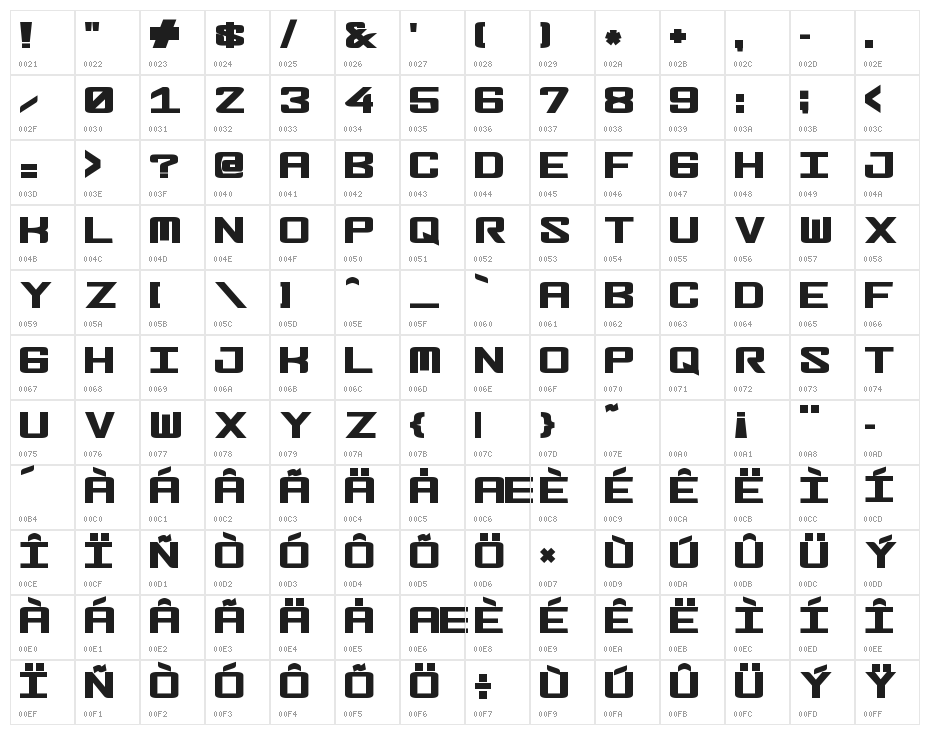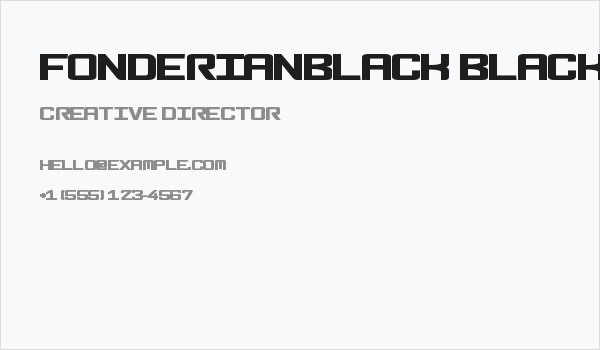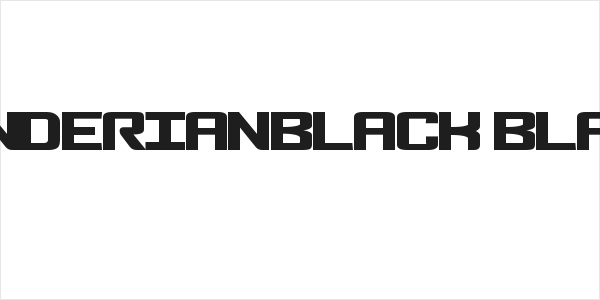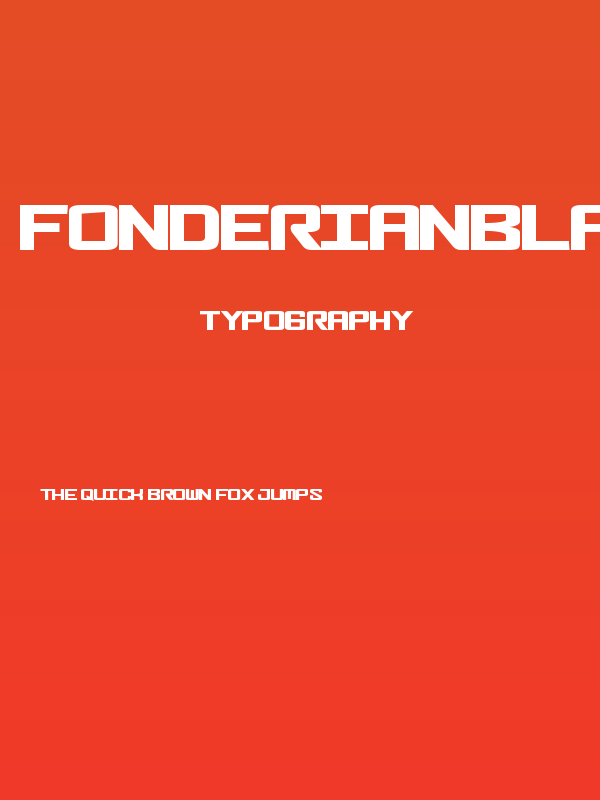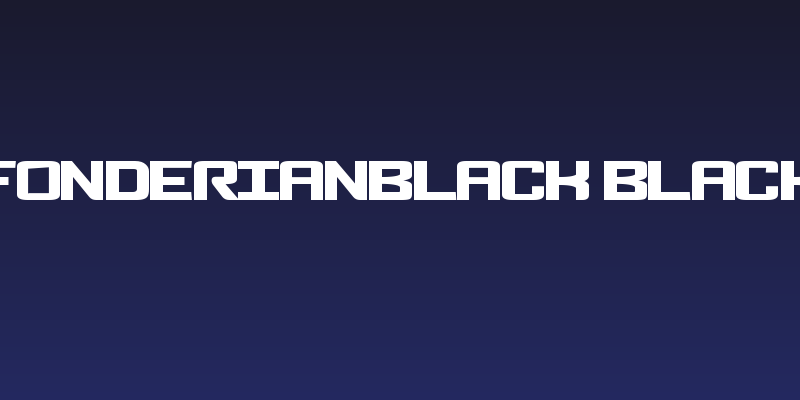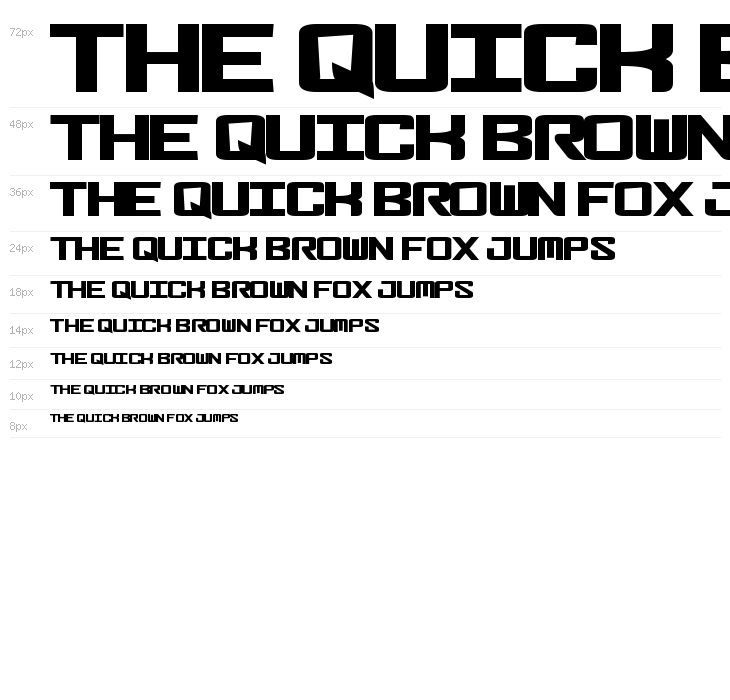
FonderianBlack Black Font
FonderianBlack Black Description
This font exhibits a bold and robust design with a distinctly modern and industrial feel. The characters are blocky and geometric, featuring sharp angles and a uniform thickness throughout. The uppercase letters are particularly striking, with a strong presence that commands attention. The numbers and special characters maintain the same bold style, ensuring consistency across all elements. The font's design is clean and uncluttered, making it suitable for projects that require a strong visual impact.
Proposed ProjectsIdeal for branding, posters, headlines, and any design requiring a strong, impactful typeface.